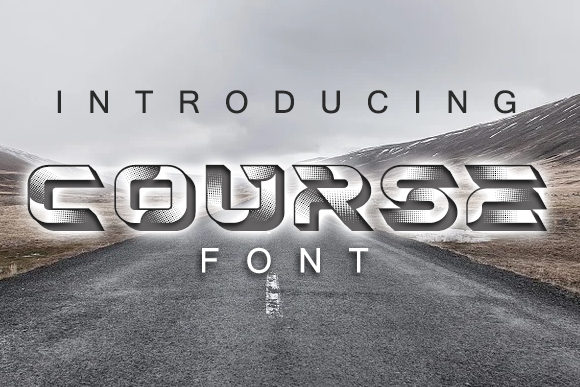
Course Font: Elevate Your Designs with a Bold and Stylish 3D Display Font
Are you looking for a font that can add a touch of sophistication and elegance to your designs? Look no further than Course Font, a bold and stylish 3D display font that is sure to make your creative ideas stand out. In this article, we’ll take a closer look at Course Font, its features, and how you can use it to take your designs to the next level.
What is Course Font?
Course Font is a modern, 3D display font that is designed to make a statement. Its bold and stylish design makes it perfect for use in a variety of creative projects, from posters and flyers to logos and branding materials. The font features a unique, three-dimensional design that gives it a distinctive look and feel.
Benefits of Using Course Font
There are many benefits to using Course Font in your designs. Here are just a few:
- Stand out from the crowd: With its bold and stylish design, Course Font is sure to grab attention and make your designs stand out from the crowd.
- Perfect for headlines and titles: The font’s large, 3D design makes it perfect for use in headlines and titles, where you want to make a big impact.
- Easy to read: Despite its bold design, Course Font is easy to read, even at smaller sizes.
- Versatile: Course Font can be used in a variety of creative projects, from posters and flyers to logos and branding materials.
Key Features of Course Font
Course Font has a number of key features that make it a great choice for your designs. Here are a few:
- Bold and stylish design: Course Font features a bold and stylish 3D design that is sure to grab attention.
- Unique 3D effect: The font’s 3D design gives it a distinctive look and feel that sets it apart from other fonts.
- High-quality design: Course Font is designed to high standards, with clean lines and a professional finish.
Design Tips for Using Course Font
Here are a few design tips to help you get the most out of Course Font:
- Use it for headlines and titles: Course Font is perfect for use in headlines and titles, where you want to make a big impact.
- Experiment with colors: The font’s 3D design looks great in a variety of colors, so don’t be afraid to experiment and find the perfect color for your design.
- Pair it with other fonts: Course Font can be paired with other fonts to create a unique and interesting design.
- Use it sparingly: While Course Font is a great font, it’s best used sparingly. Use it for headlines and titles, and a simpler font for body text.
Pairing Course Font with Other Fonts
Course Font can be paired with other fonts to create a unique and interesting design. Here are a few suggestions:
- Arial: Arial is a classic font that pairs well with Course Font. Use it for body text to create a clean and professional design.
- Helvetica: Helvetica is another popular font that pairs well with Course Font. Use it for body text to create a modern and stylish design.
- Open Sans: Open Sans is a clean and modern font that pairs well with Course Font. Use it for body text to create a clean and professional design.
Course Font is a bold and stylish 3D display font that is sure to make your designs stand out. With its unique 3D effect, high-quality design, and ease of use, it’s a great choice for a variety of creative projects. Whether you’re looking to create a poster, flyer, logo, or branding materials, Course Font is a great option. So why not give it a try and see how it can elevate your designs?